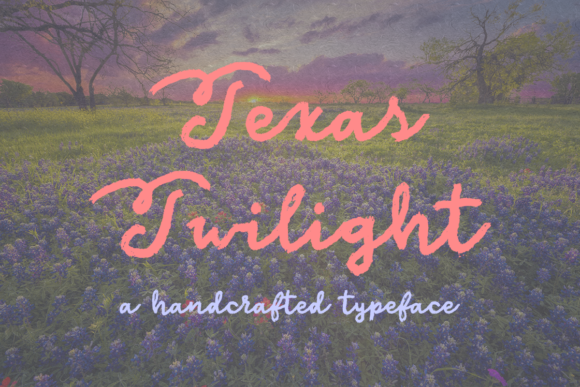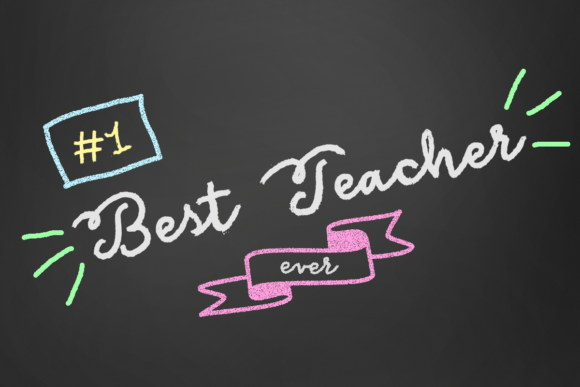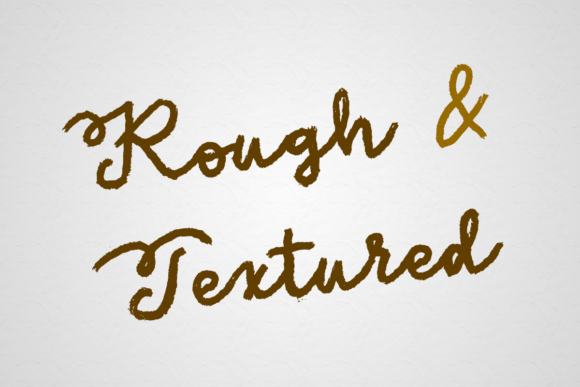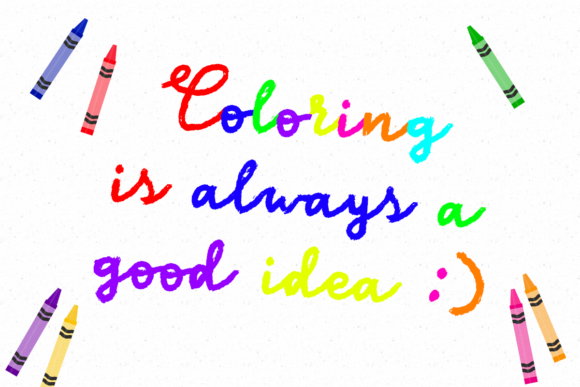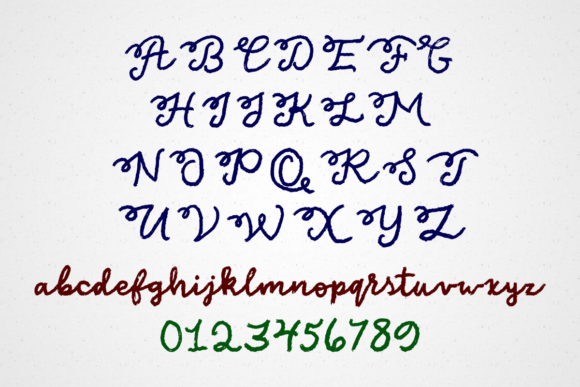
Texas Twilight Font
About Texas Twilight Font
Texas Twilight is a handcrafted typeface that is perfect for creating chalky, crayon and marker effects. It will add organic, handwritten charm to any project!